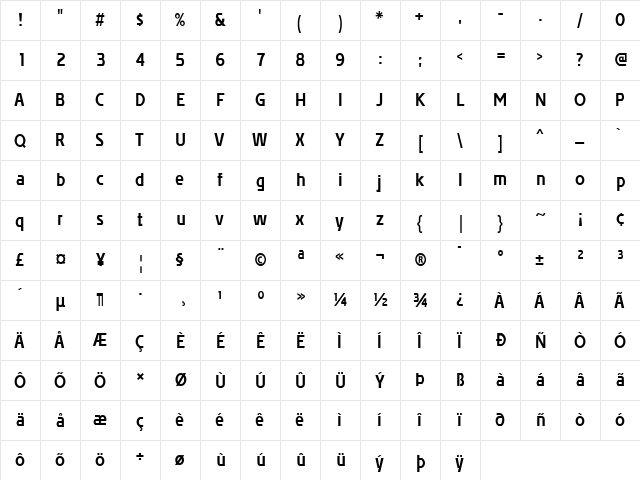
Affluent Bold
Design Context for Affluent Typeface
Affluent takes a measured approach to typography — its balanced proportions and neutral character make it a reliable workhorse for both digital and print work. Its bold stroke weight gives it real presence on the page.